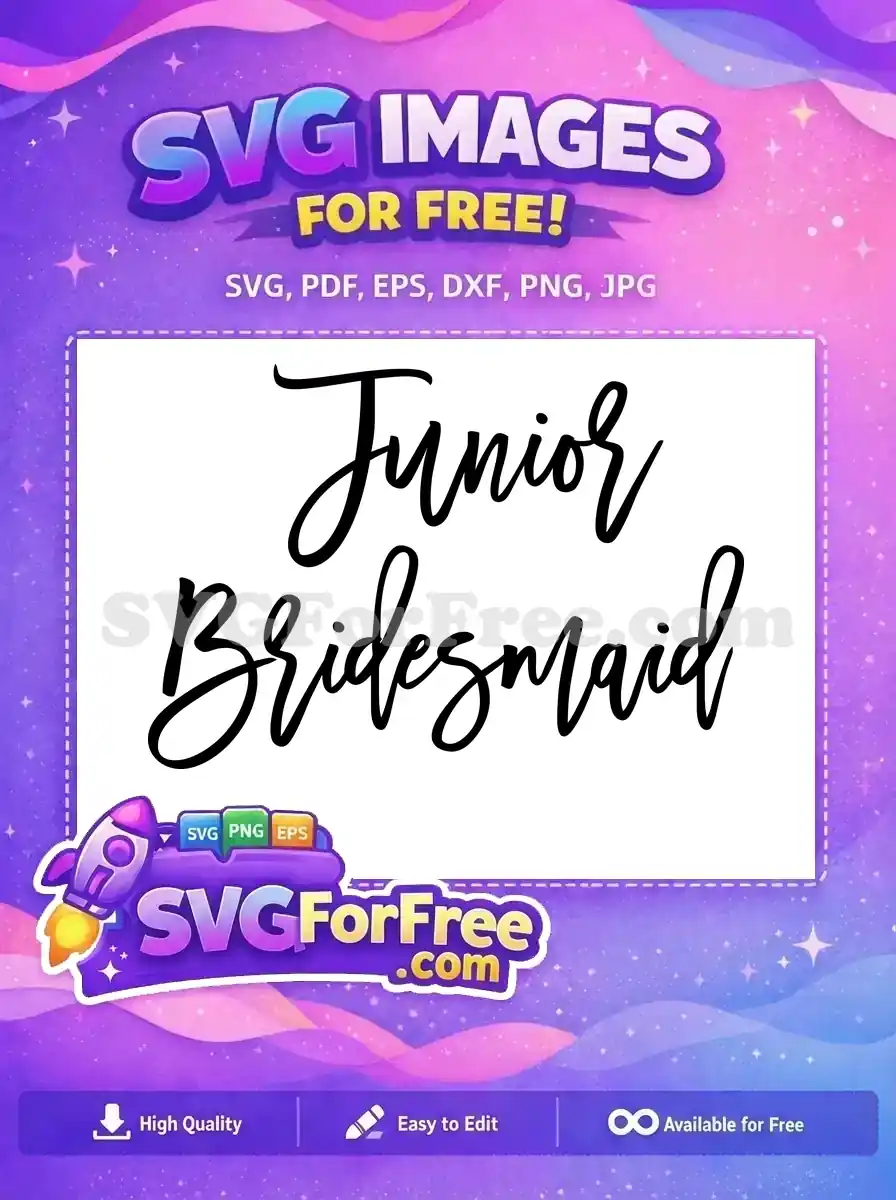
This free Junior Bridesmaid script design offers elegant wedding charm. Perfect for DIY projects and special event creations, it’s a must-have free SVG.